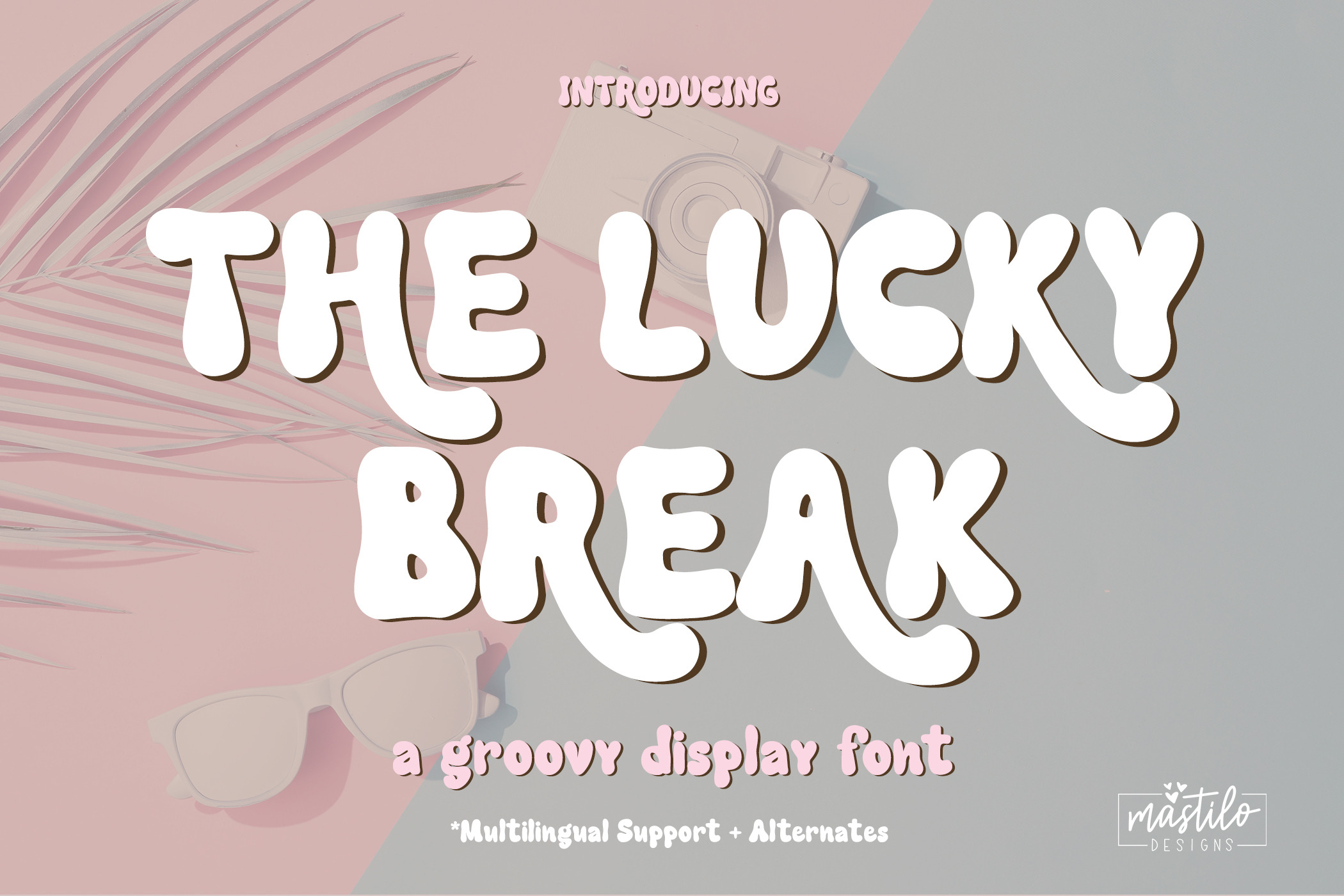
The Lucky Break Retro Groovy Font
Introducing The Lucky Break, a groovy display font with plenty of stylistic alternates and ligatures making it a versatile font, with possibilities for use for all your projects.
The Lucky Break includes:
full upper + lowercase characters
numbers + punctuation
Western European Language Support
15 alternate characters to add a little extra flow & ornamentation
4 ligatures - tt, ff, it, iti (We highly recommend using a program that supports OpenType features and Glyphs panels like many of Adobe apps and Corel Draw, so you can see and access all Glyph variations)